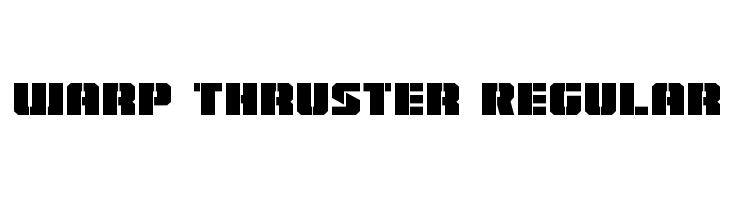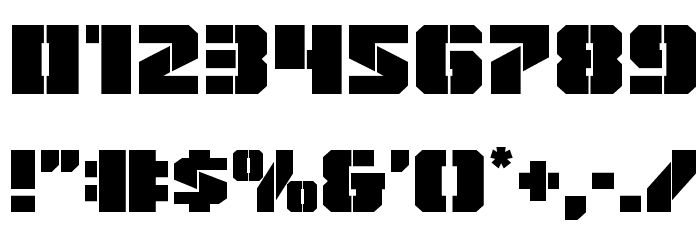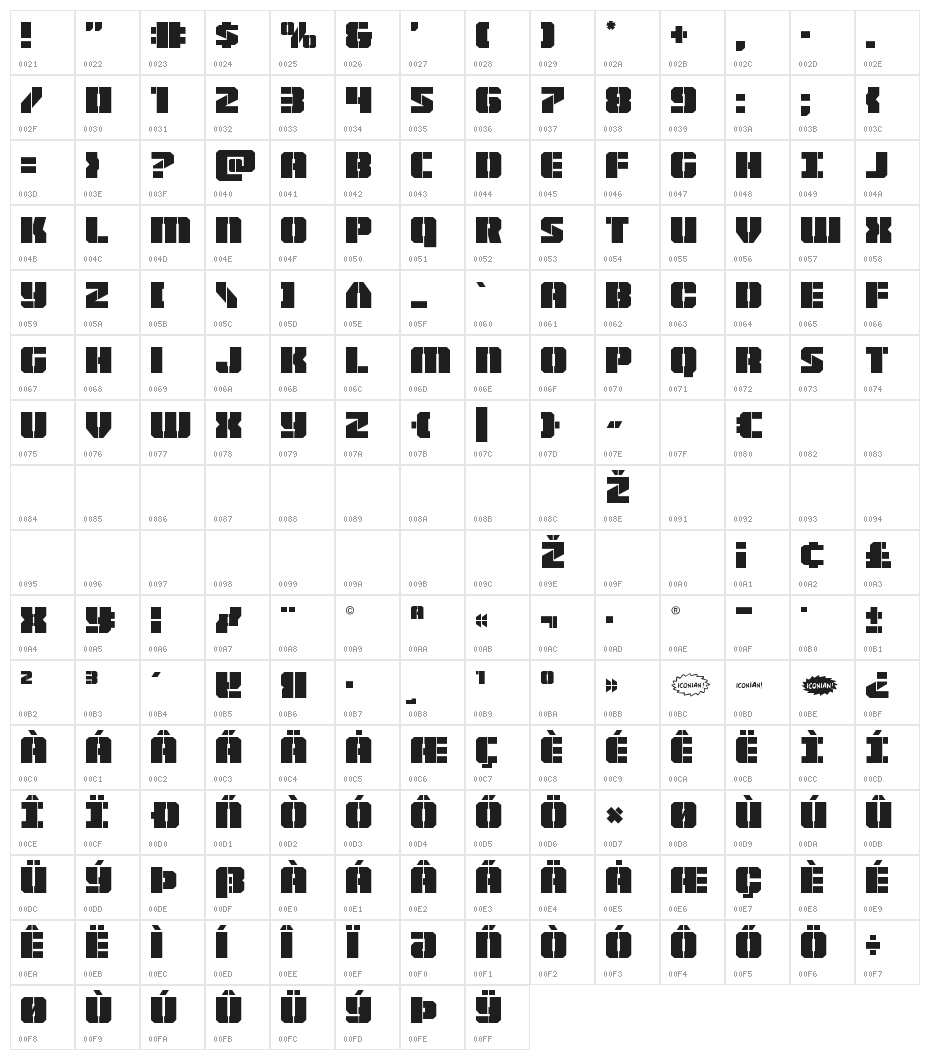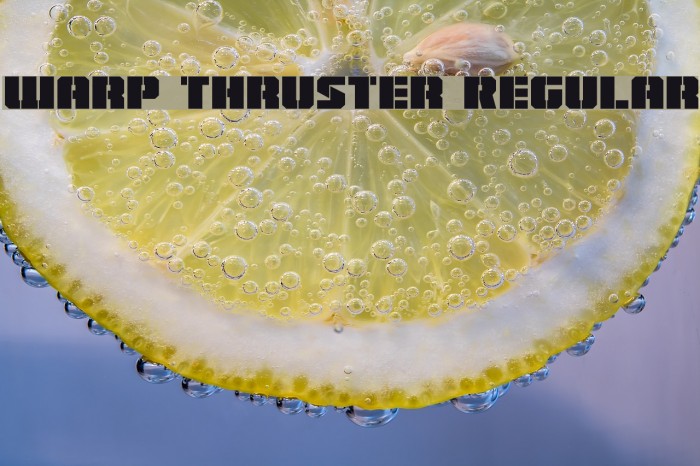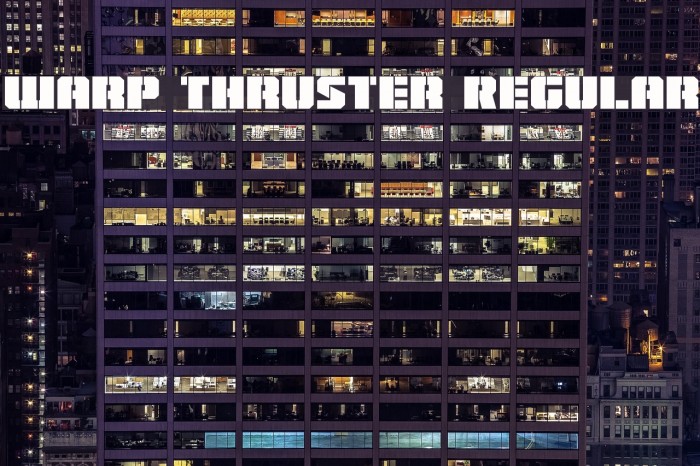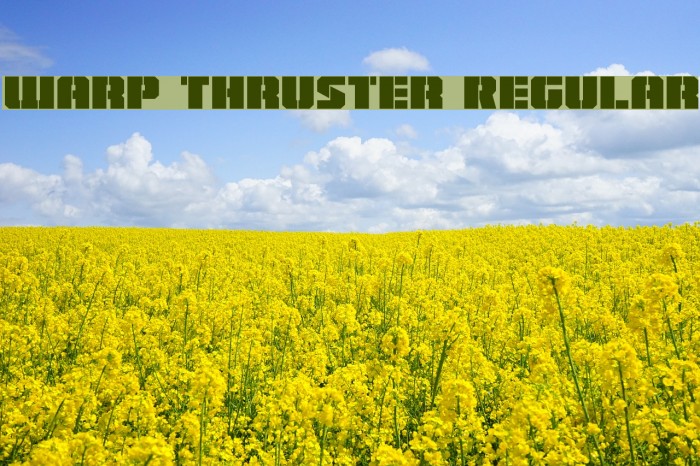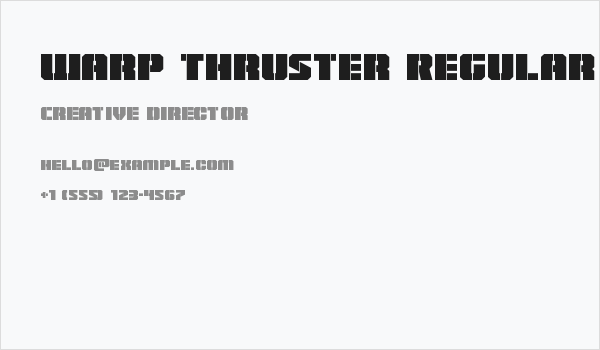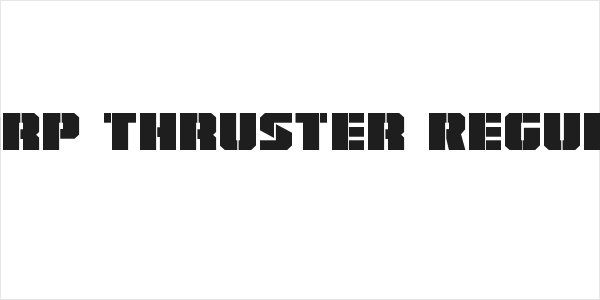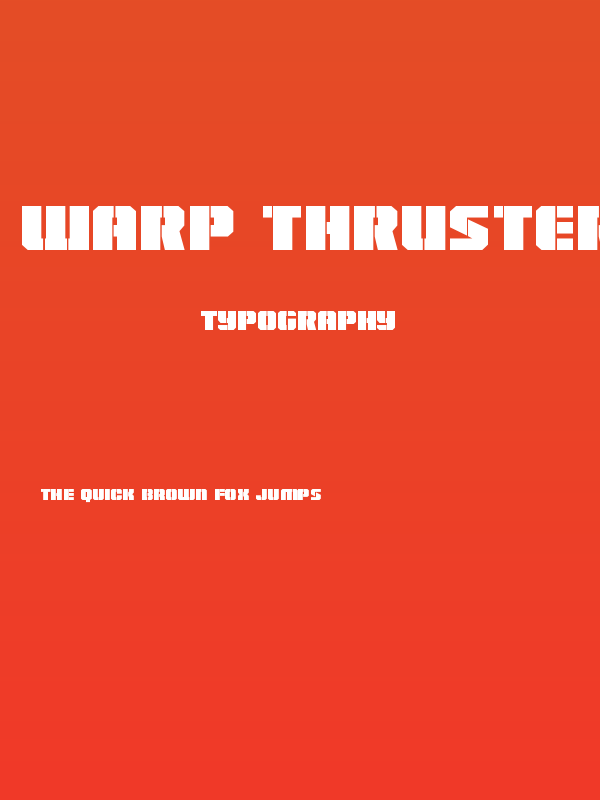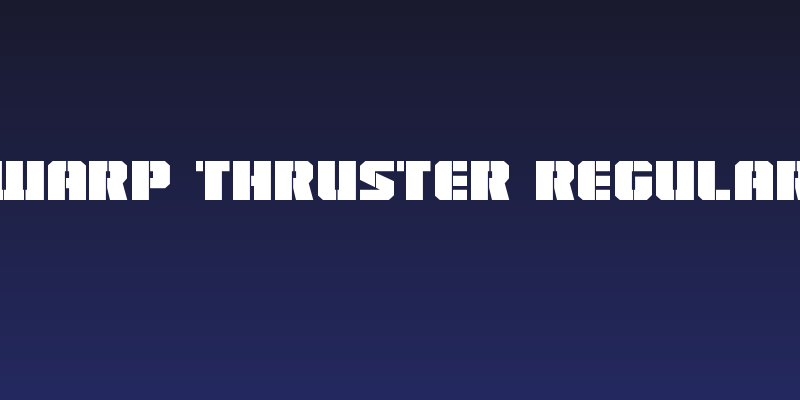
Warp Thruster Regular Font
Warp Thruster Regular Description
This font features a bold, futuristic design with a blocky, geometric structure. Each character is composed of solid, angular shapes that convey a sense of strength and modernity. The uppercase and lowercase letters maintain a consistent style, with sharp edges and a uniform height, creating a cohesive appearance. The numerals and special characters follow the same design principles, ensuring visual harmony across all elements. This font's unique style makes it stand out, making it ideal for projects that require a strong, impactful visual presence.
| Proposed Projects | Ideal for sci-fi themed posters, video game titles, technology branding, and futuristic event flyers. |